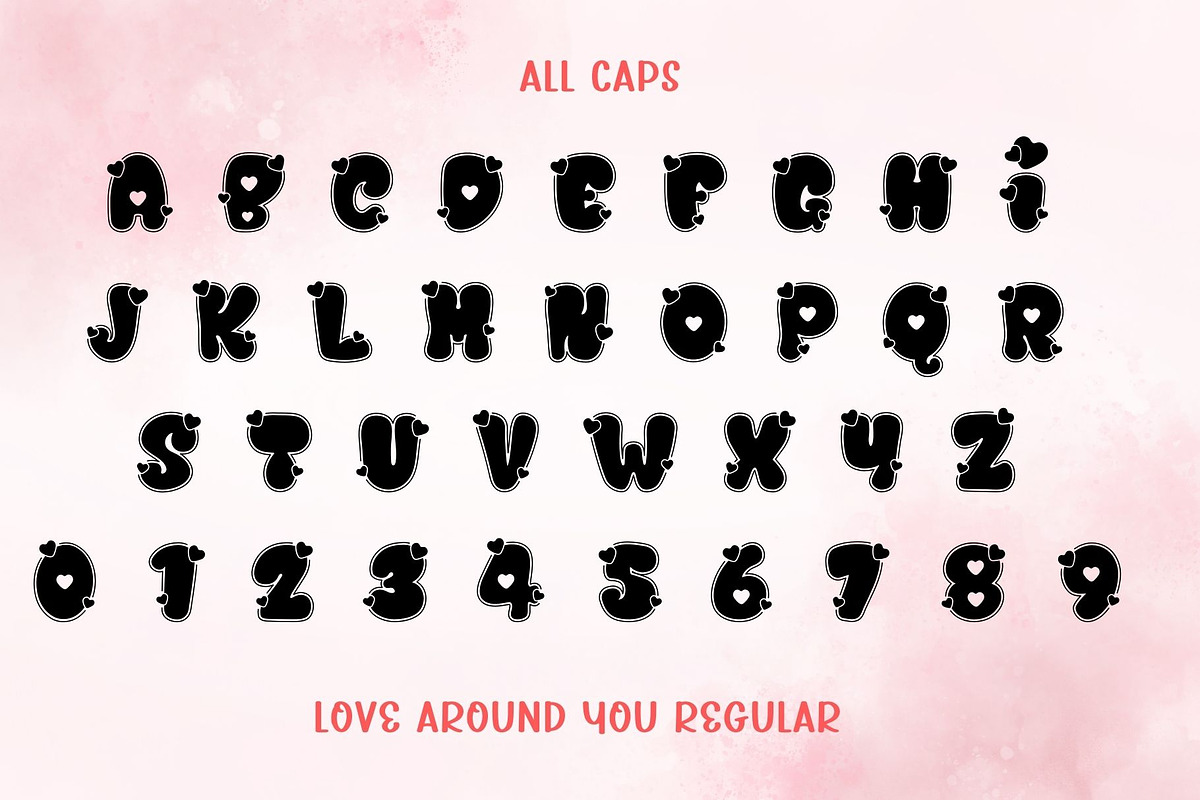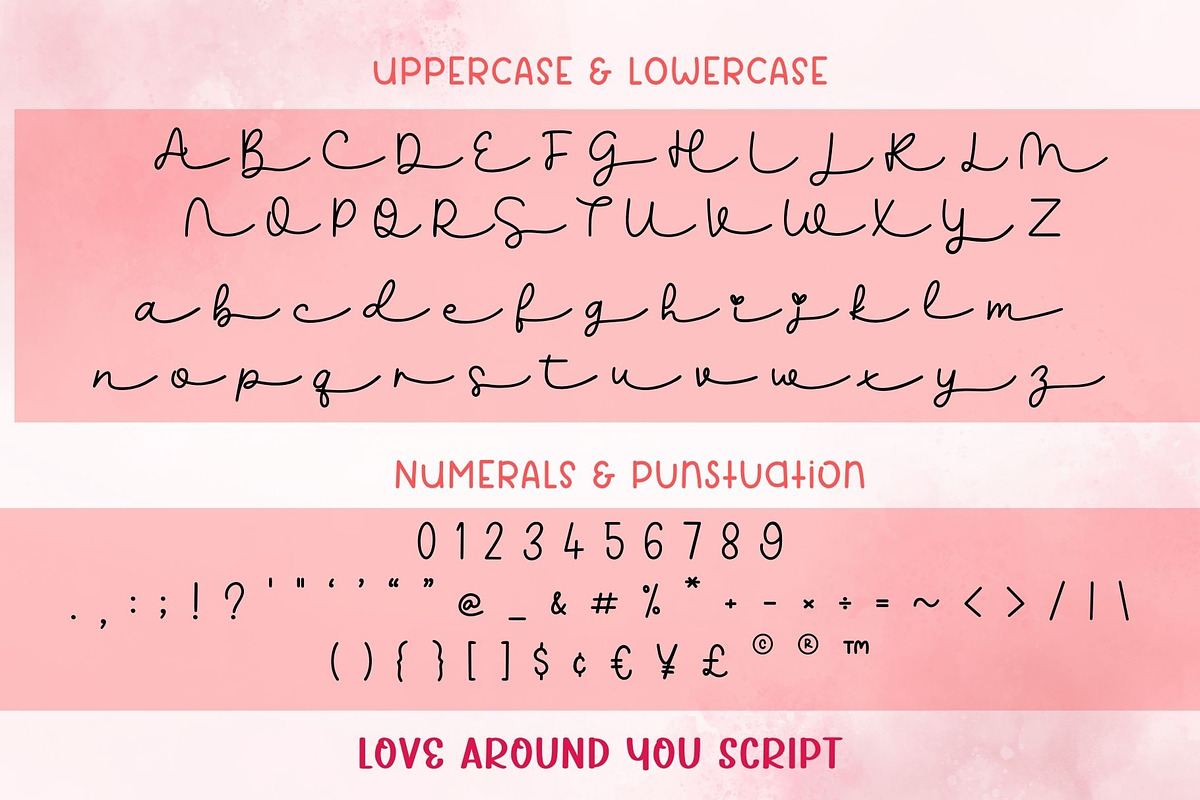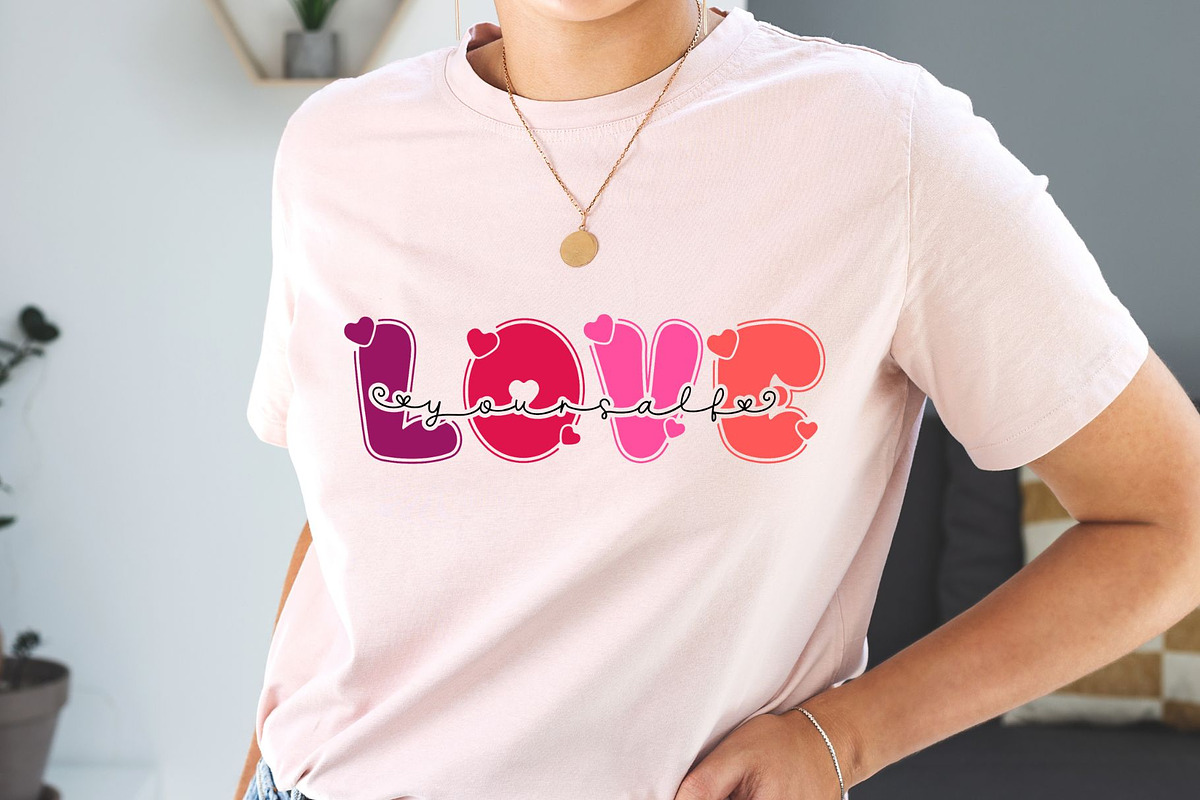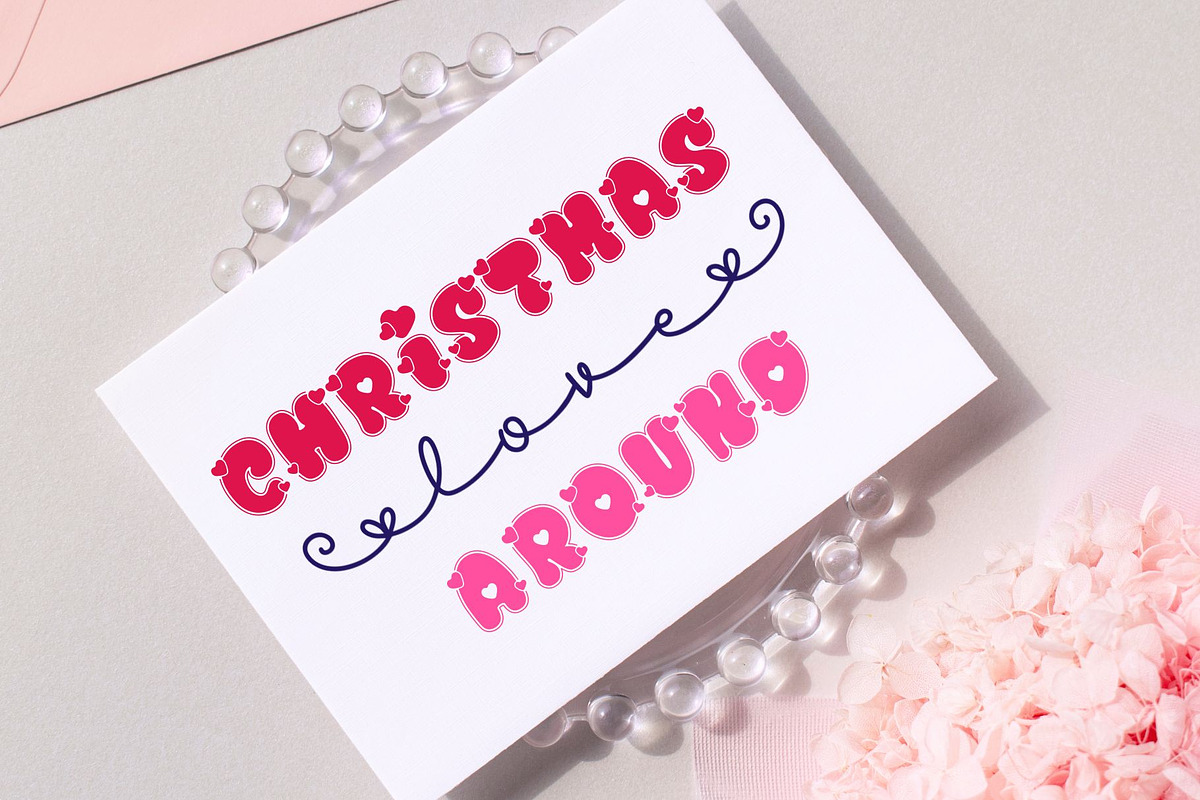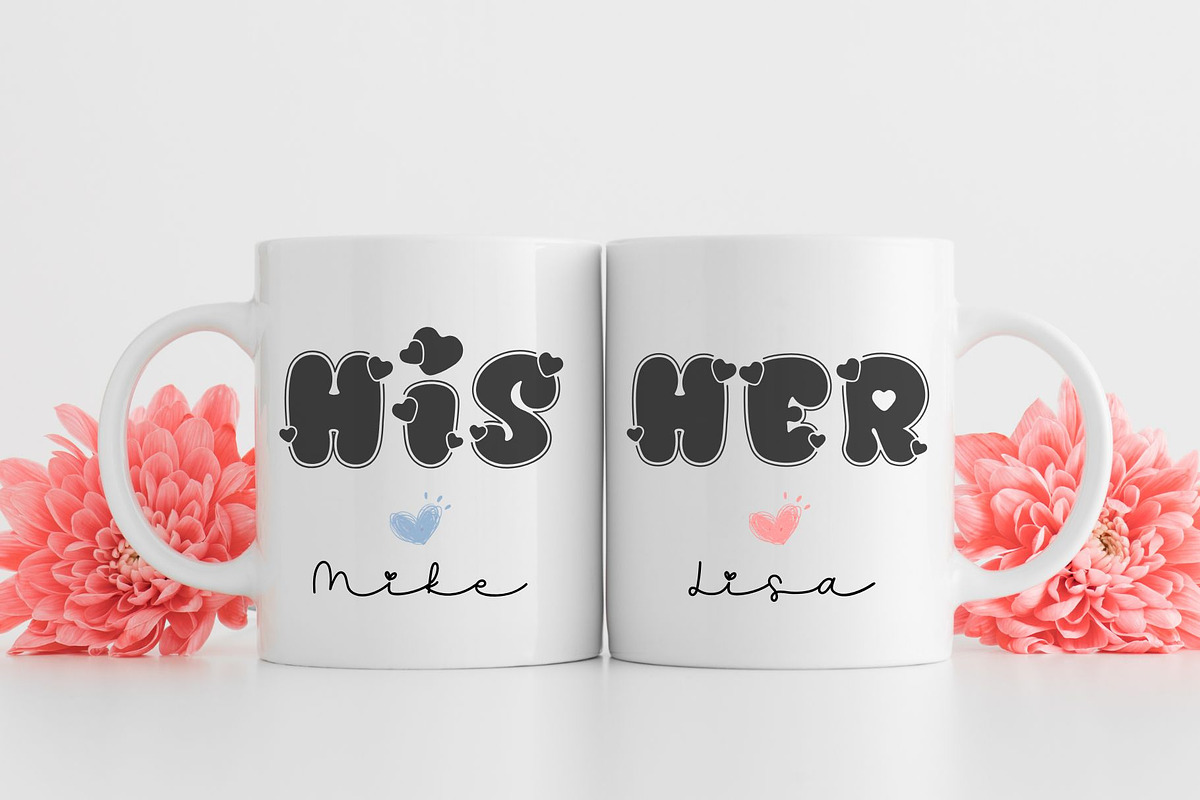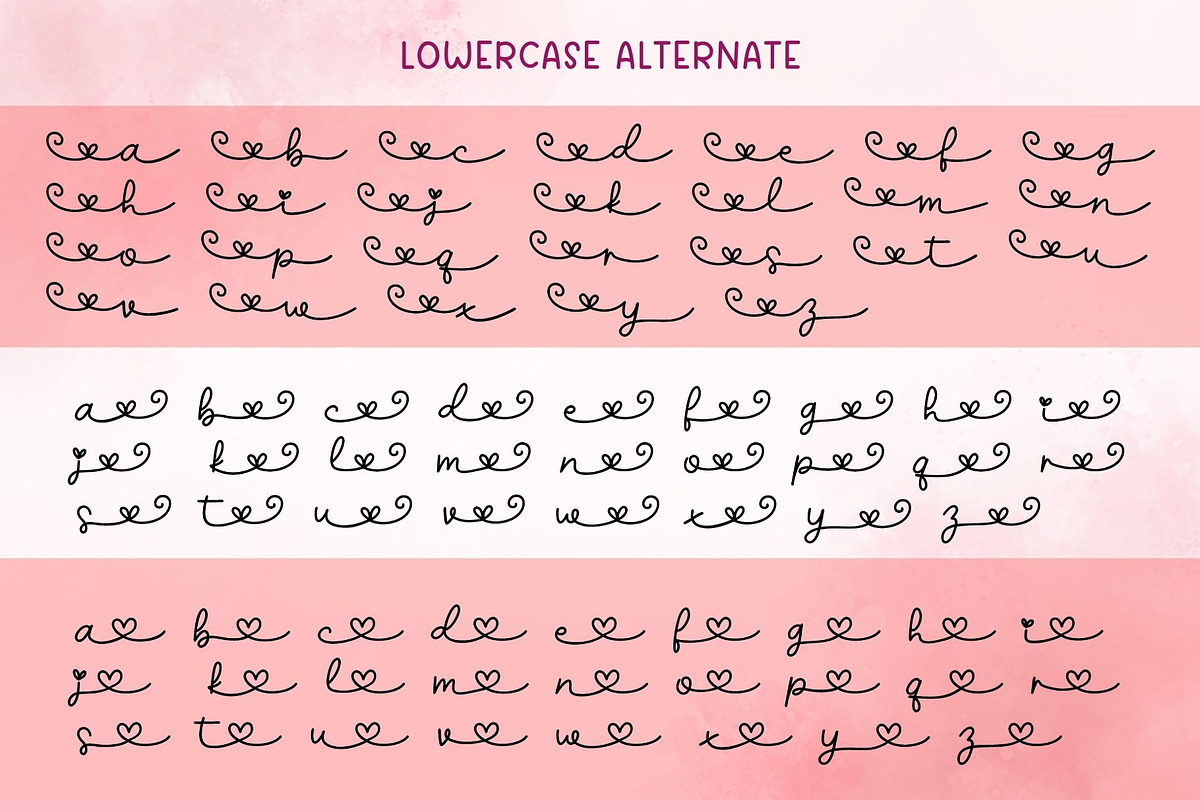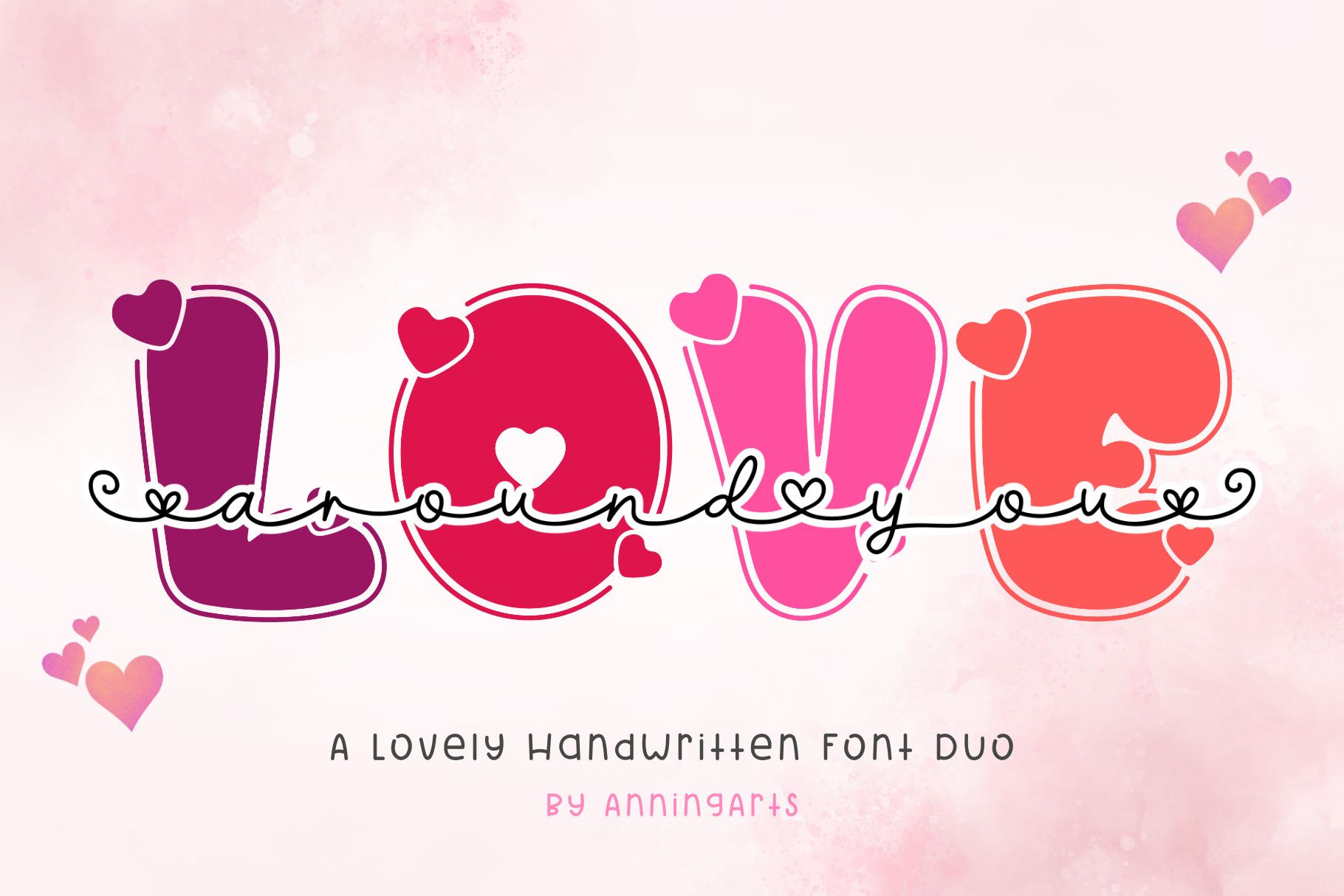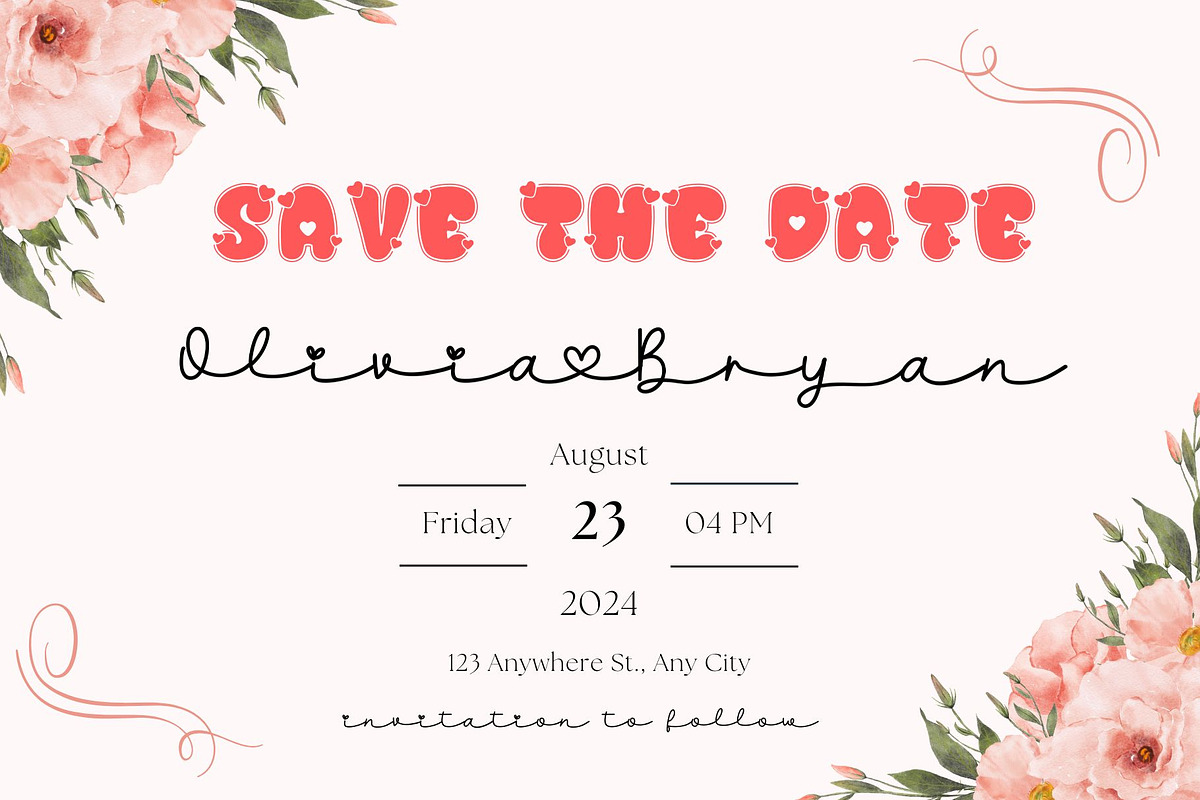
Love Around You Font Duo
Love Around You is a lovely font duo. This set consists of Valentine a script font and a display font, providing a wide range of unique and attention-grabbing design choices. You can utilize this pair of fonts to create various designs, including mugs, bags, shirts, pillows, and more.